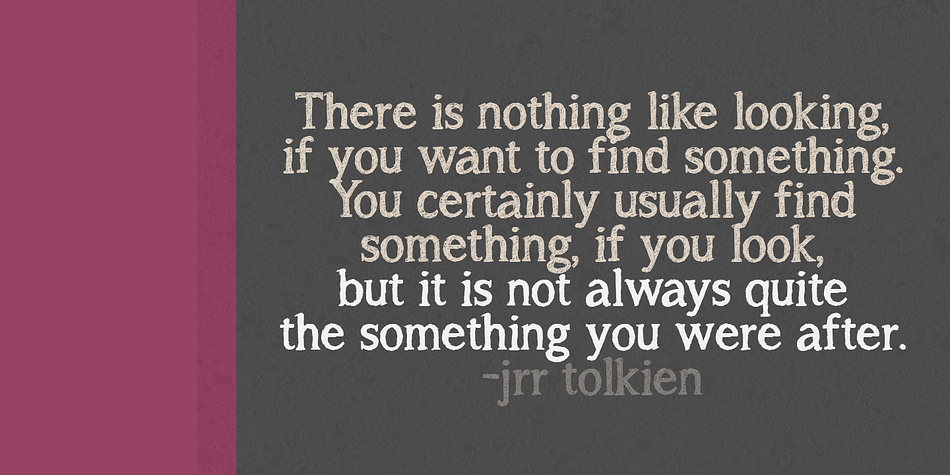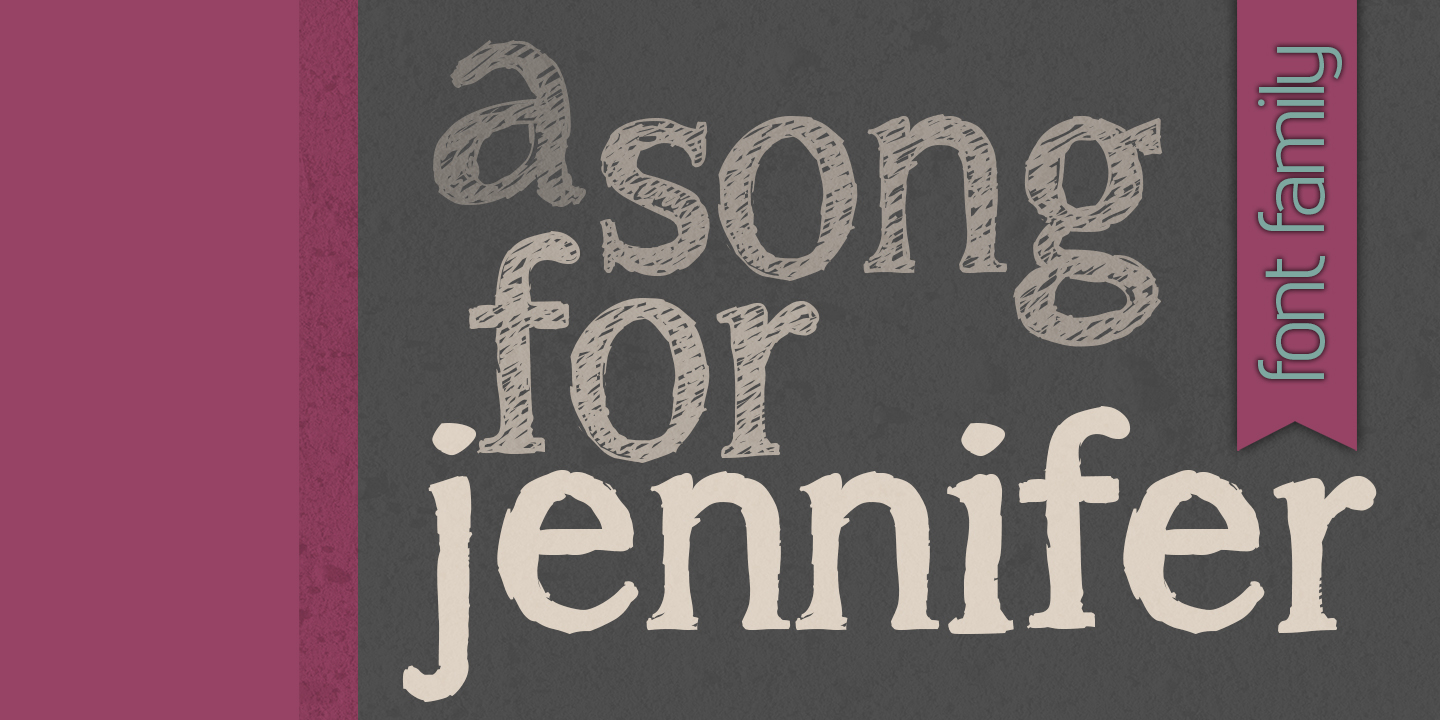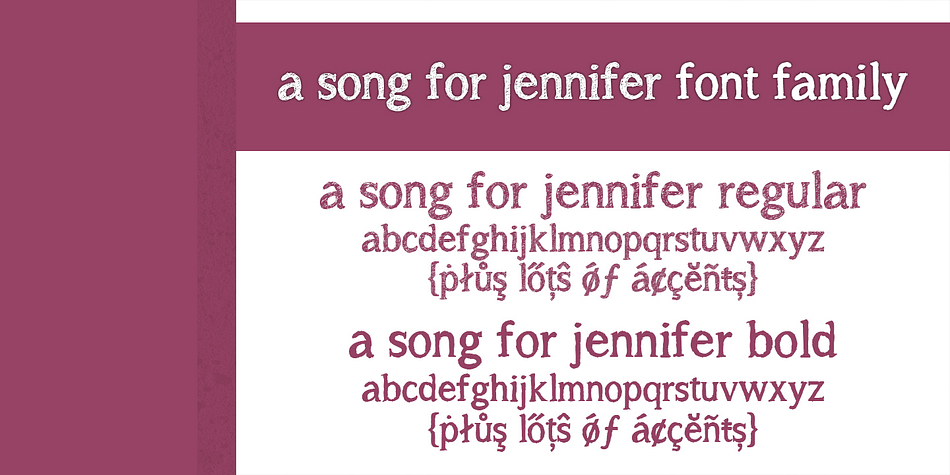
A Song For Jennifer is a hand drawn font family. This typeface has two styles and was published by Brittney Murphy Design.
A Song for Jennifer is a sketchy serif that sets the mood. Great for adding a home-made touch.
| Style | Hand Drawn |